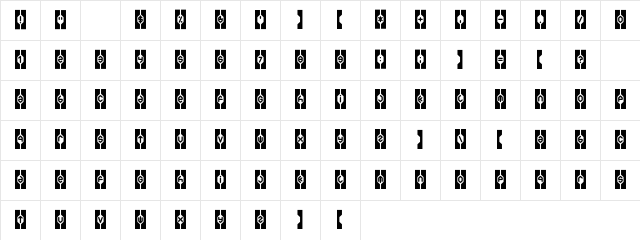
WelfareBrat Regular
Design Context for WelfareBrat
WelfareBrat is a composed and adaptable typeface that performs quietly and consistently across a wide range of design contexts.
Pro Tip: Use WelfareBrat in both headline and body roles to test its range before committing to a single application.